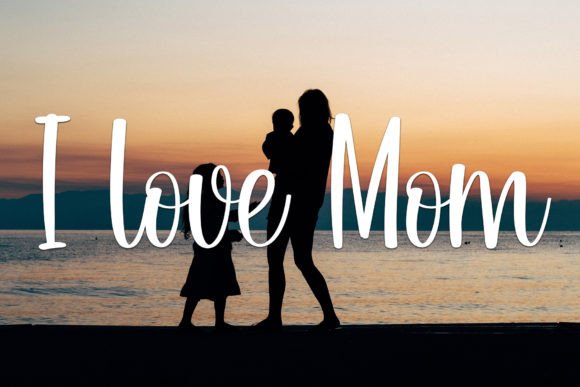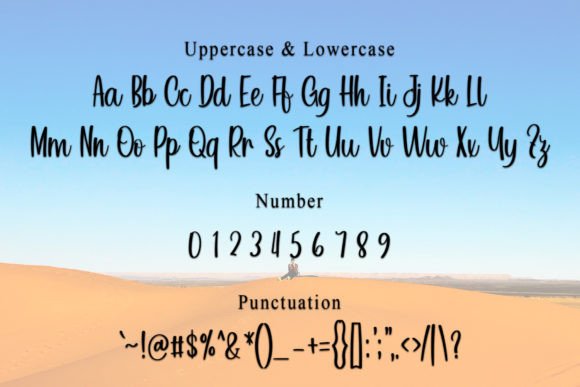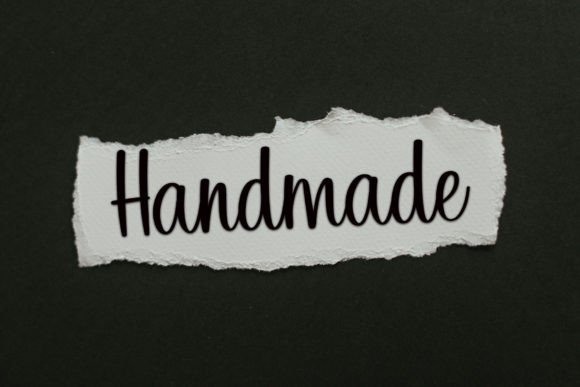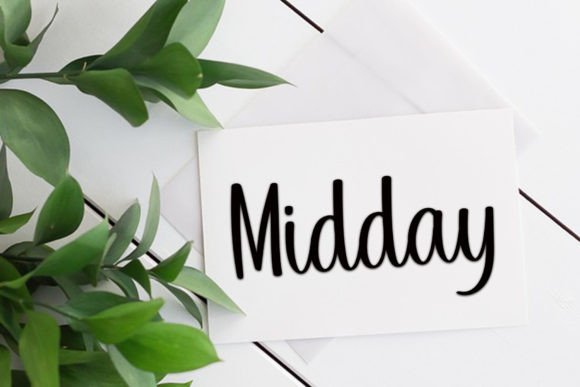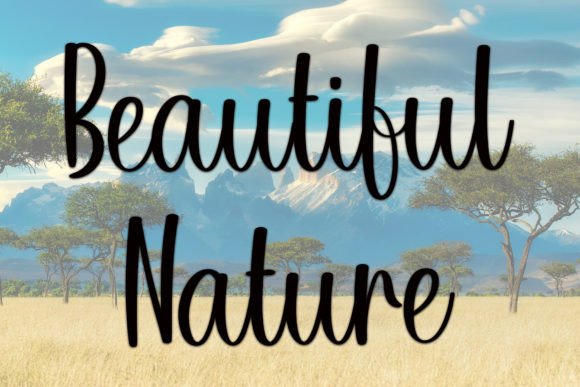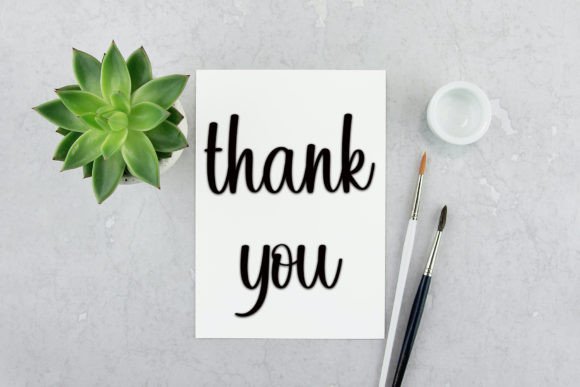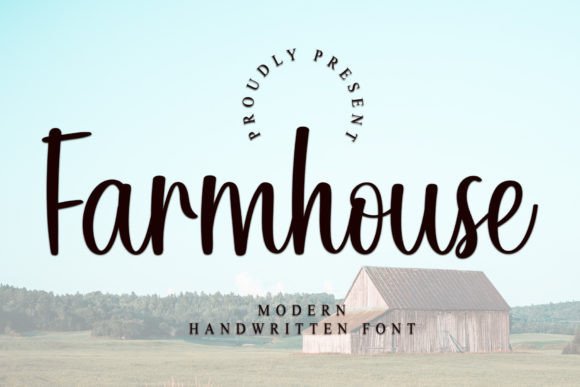
Discover the Charm of Farmhouse Font: A Timeless Handwritten Style for Your Designs
Are you a designer or crafter looking for a unique and beautiful font to elevate your projects? Look no further than the Farmhouse Font, a neat and stunning handwritten font that’s perfect for a wide range of designs. With its distinct and timeless style, Farmhouse Font is sure to capture the hearts of anyone who lays eyes on it.
Farmhouse Font is a carefully crafted handwritten font that’s designed to bring a touch of rustic charm to your designs. Its elegant and flowing script is reminiscent of traditional farmhouse signs, but with a modern twist that makes it perfect for contemporary projects. Whether you’re creating invitations, branding materials, or social media graphics, Farmhouse Font is the perfect choice.
- Unique and Distinctive Style: Farmhouse Font boasts a one-of-a-kind style that’s sure to set your designs apart from the rest.
- Timeless Appeal: Unlike trendy fonts that quickly go out of style, Farmhouse Font has a timeless quality that ensures your designs will remain beautiful for years to come.
- Handwritten with Love: Each letter and stroke of Farmhouse Font has been carefully handwritten with love and attention to detail, giving it a personal and authentic feel.
- Versatile: Farmhouse Font is perfect for a wide range of projects, from rustic wedding invitations to modern branding materials.
Uses for Farmhouse Font
Farmhouse Font is incredibly versatile, making it perfect for a variety of design projects. Here are just a few ideas to get you started:
- Wedding Invitations: Add a touch of rustic charm to your wedding invitations with Farmhouse Font.
- Branding Materials: Use Farmhouse Font to create unique and memorable branding materials, such as logos, business cards, and letterheads.
- Social Media Graphics: Elevate your social media graphics with Farmhouse Font, perfect for creating eye-catching posts and stories.
- DIY Projects: Use Farmhouse Font to add a personal touch to your DIY projects, such as handmade signs, crafts, and decorations.
Why Choose Farmhouse Font?
With so many fonts available, why choose Farmhouse Font? Here are just a few reasons why designers and crafters love Farmhouse Font:
- Easy to Read: Farmhouse Font is clear and easy to read, making it perfect for designs where legibility is key.
- Highly Versatile: Farmhouse Font can be used for a wide range of projects, from formal to informal designs.
- Unique Style: Farmhouse Font has a unique and distinctive style that’s sure to make your designs stand out.
To get the most out of Farmhouse Font, here are a few tips to keep in mind:
- Use it Sparingly: Farmhouse Font is a statement font, so use it sparingly to add emphasis to your designs.
- Pair it with Other Fonts: Experiment with pairing Farmhouse Font with other fonts to create a unique and visually appealing design.
- Experiment with Colors: Farmhouse Font looks beautiful in a range of colors, so don’t be afraid to experiment and find the perfect hue for your design.
Farmhouse Font is a beautiful and versatile handwritten font that’s perfect for designers and crafters looking to add a touch of rustic charm to their projects. With its unique and timeless style, Farmhouse Font is sure to become a favorite in your design toolkit. So why wait? Download Farmhouse Font today and start creating stunning designs that will leave a lasting impression!